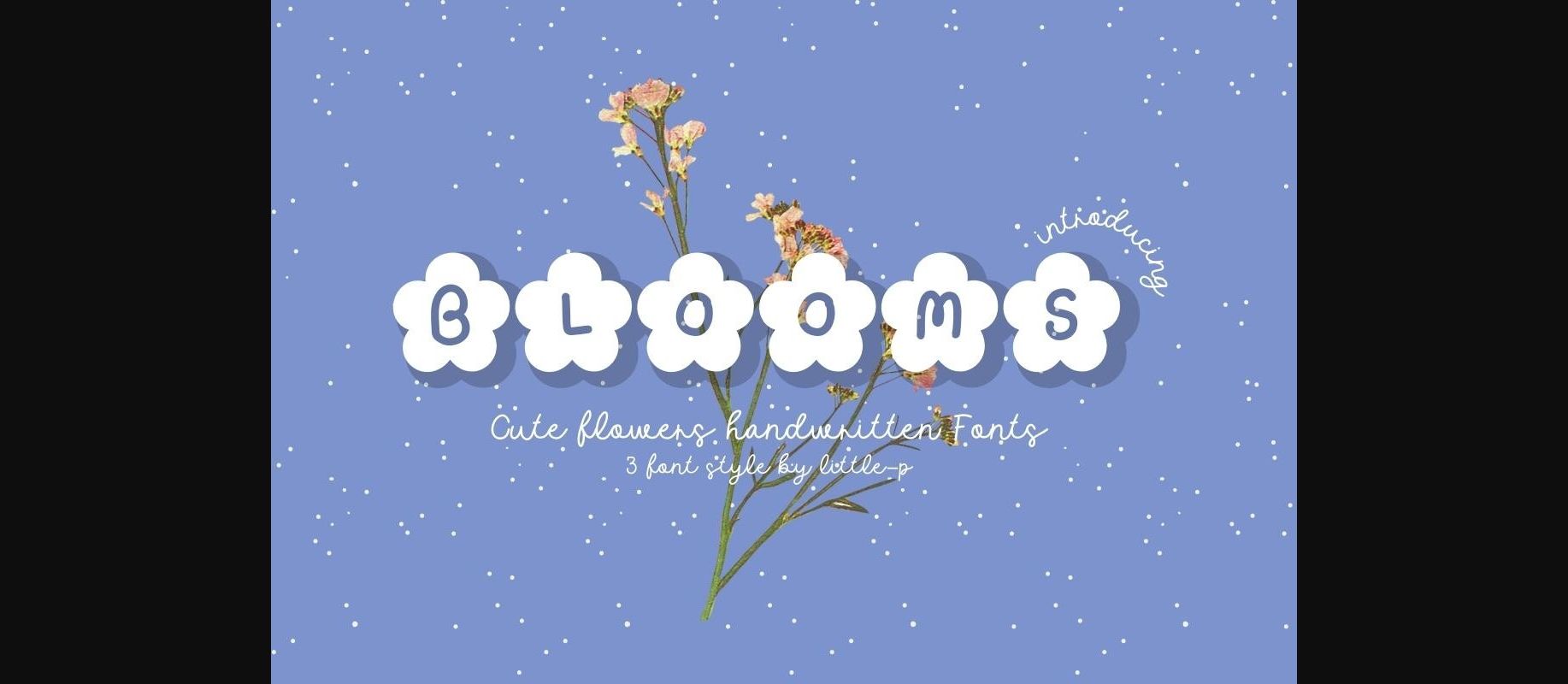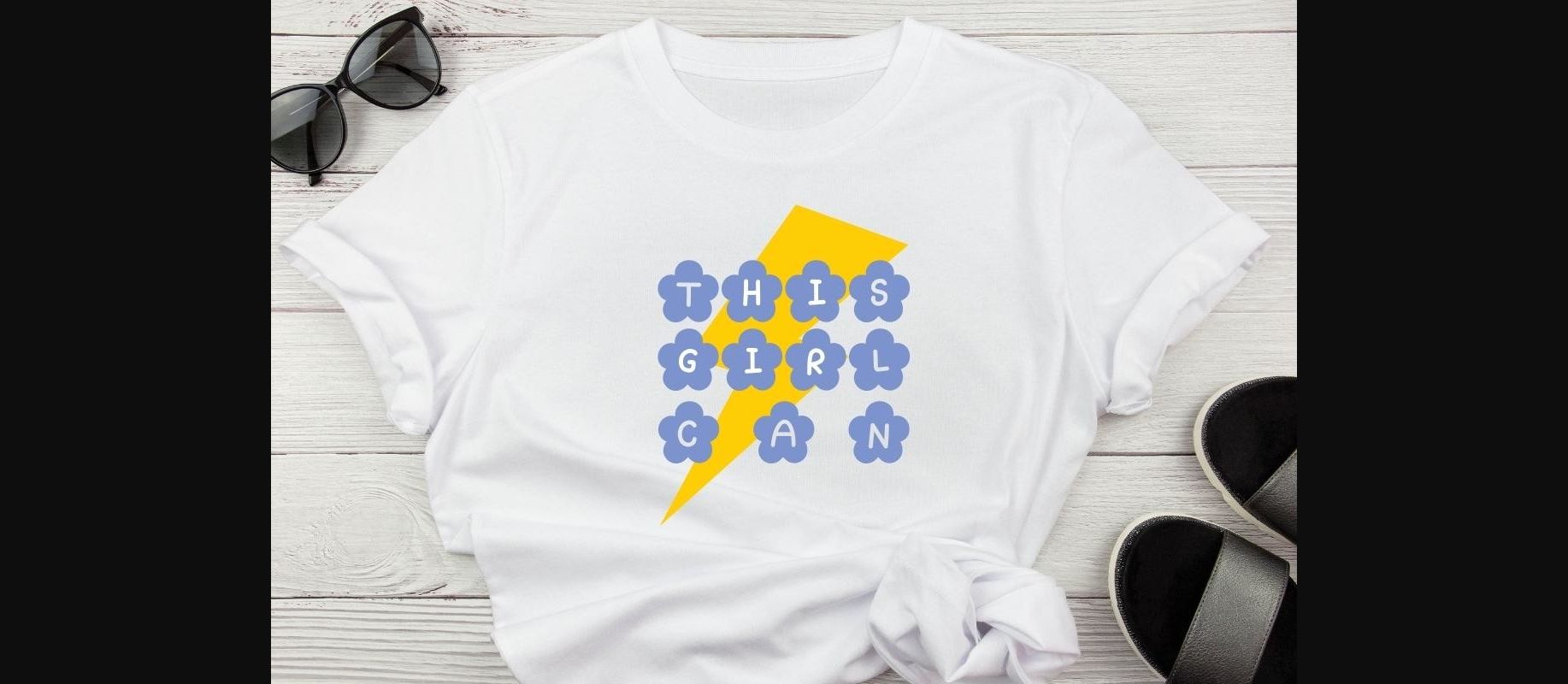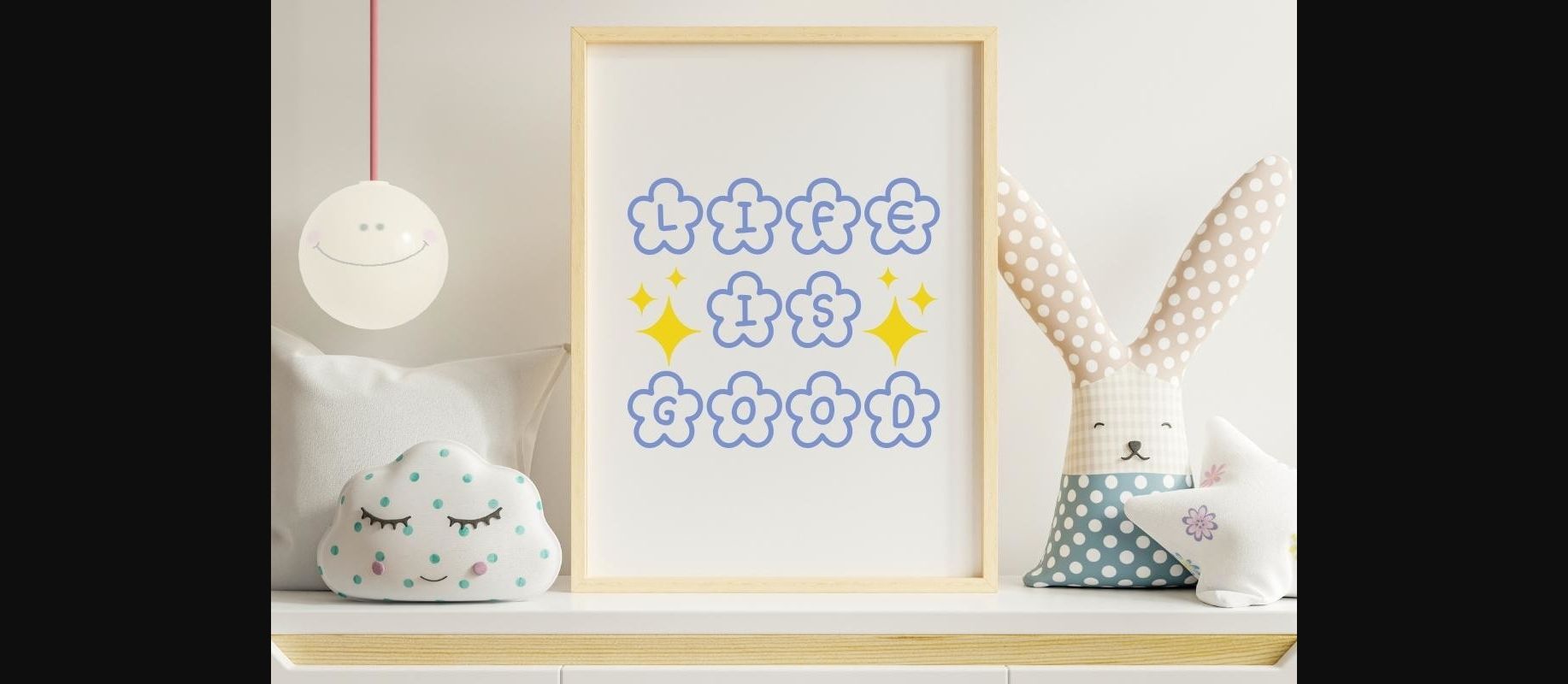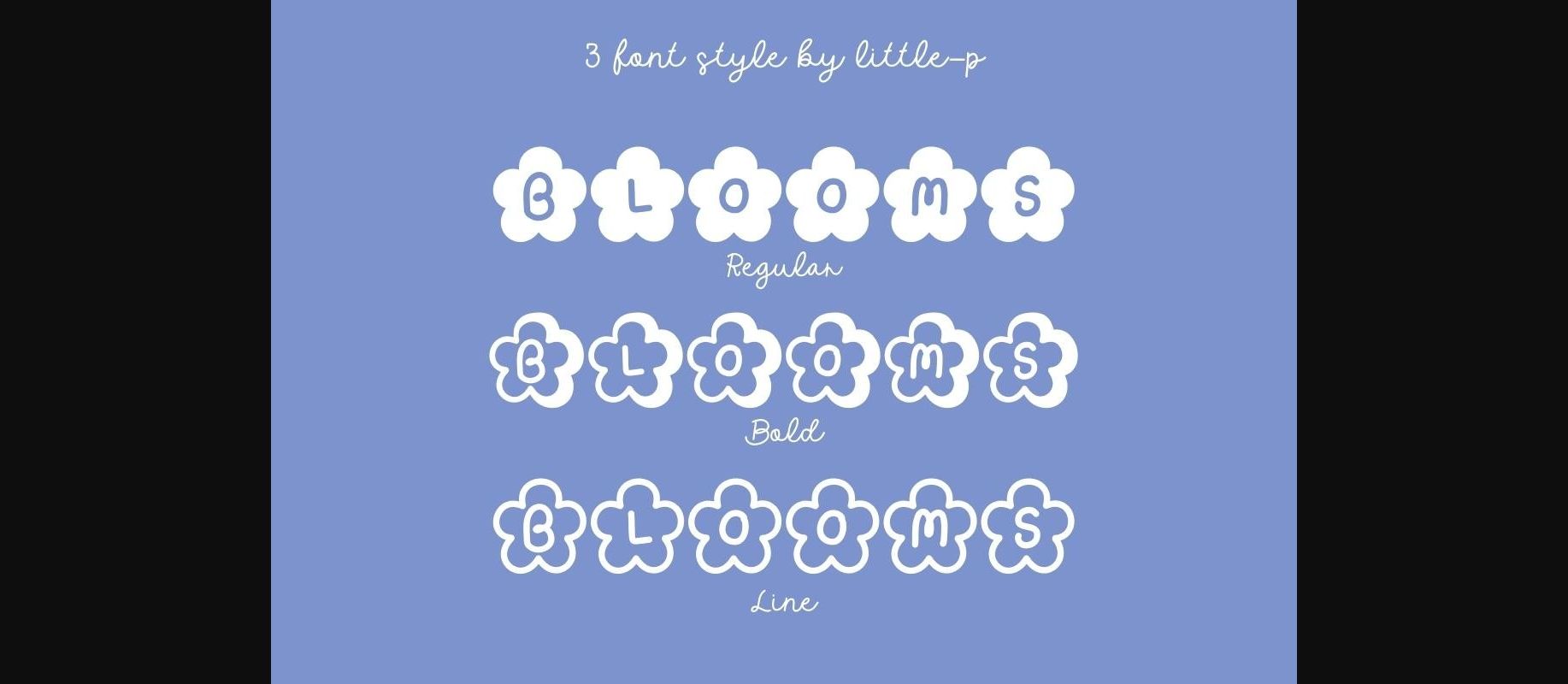
About Blooms Font
Introducing “Blooms” the font with a delightful twist and three versatile styles to meet your design needs. With the regular font, line font, and bold font options, Blooms offers unique characteristics with flower-shaped elements, making it a truly captivating decorative font. Its cute style and hand-written charm add a touch of playfulness to any project. Whether you’re creating a captivating brand identity, designing eye-catching merchandise, crafting trendy T-shirt graphics, creating fun stickers, enhancing your logo and packaging, or unleashing your creativity in any other way, “Blooms” brings a sense of charm and individuality to your designs.